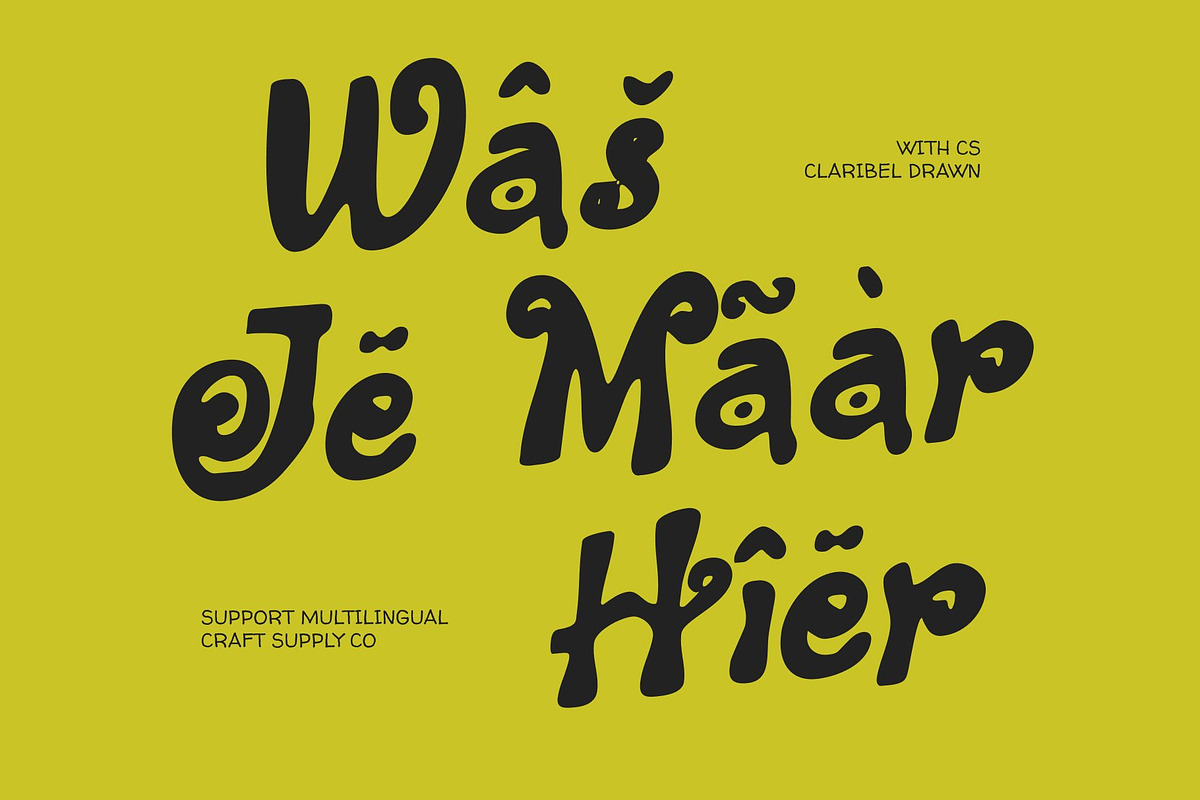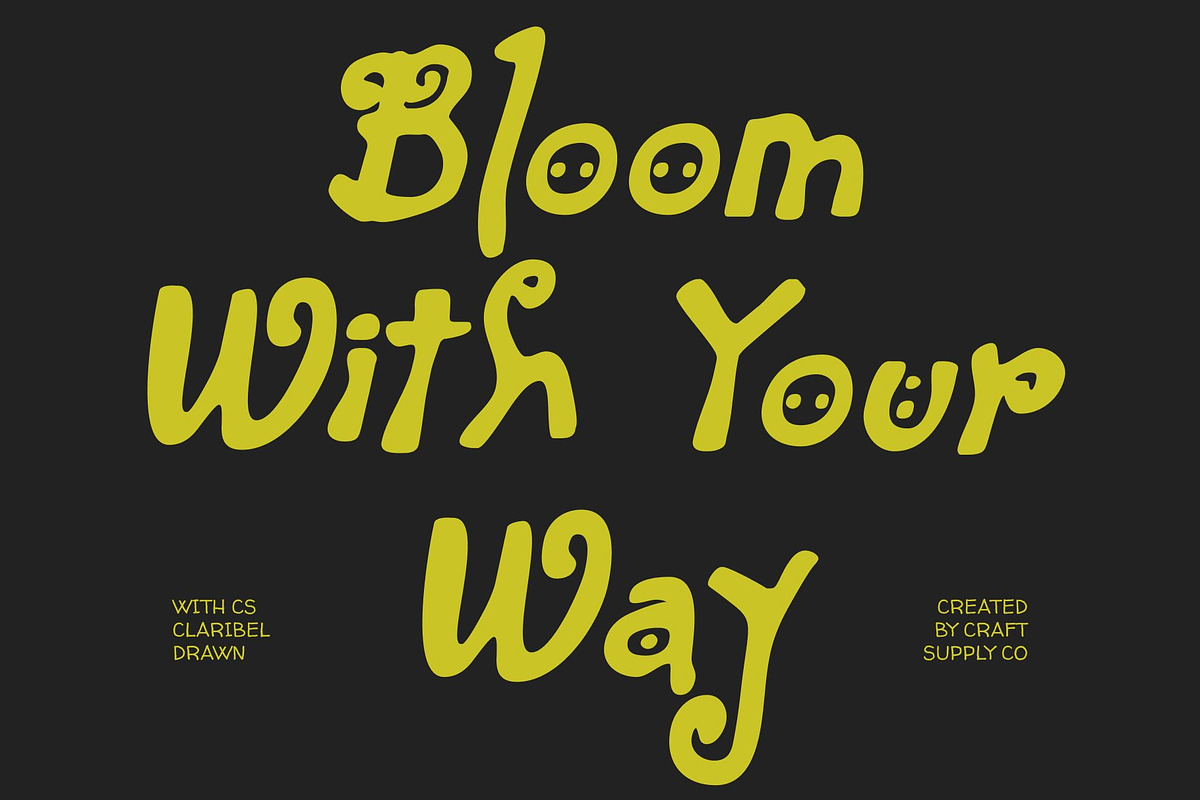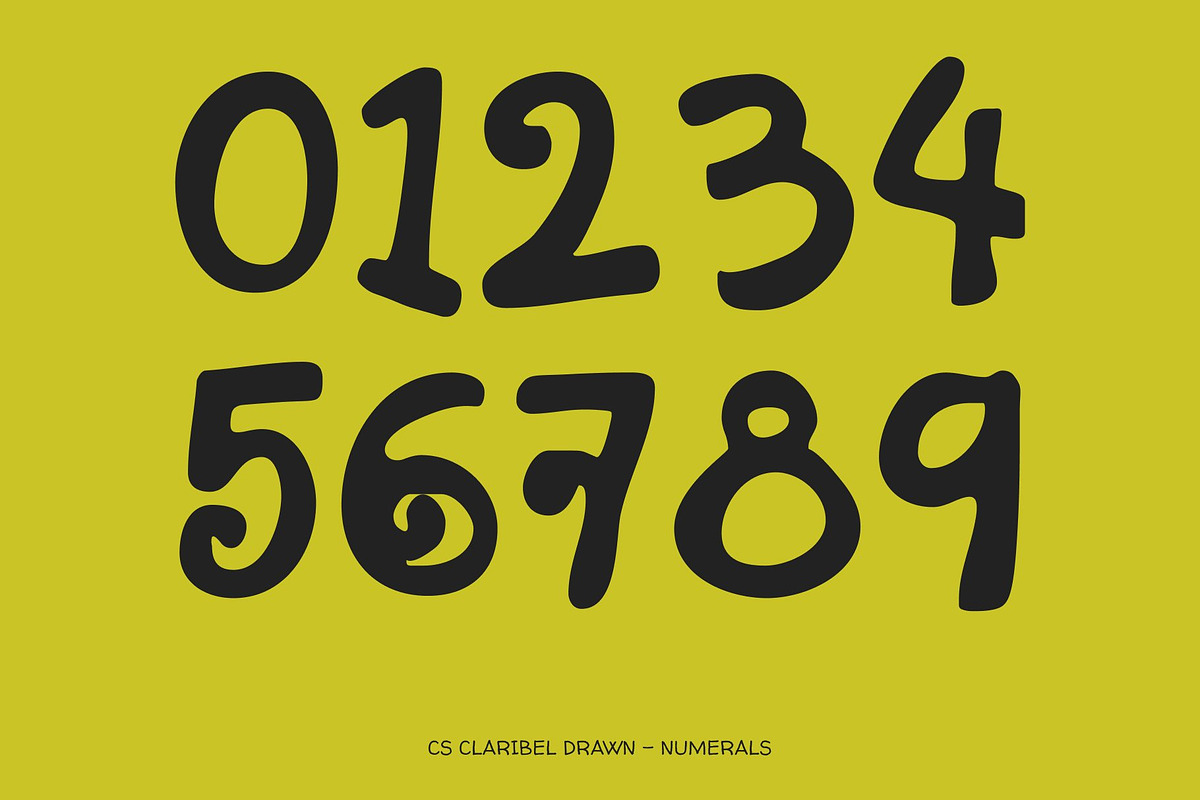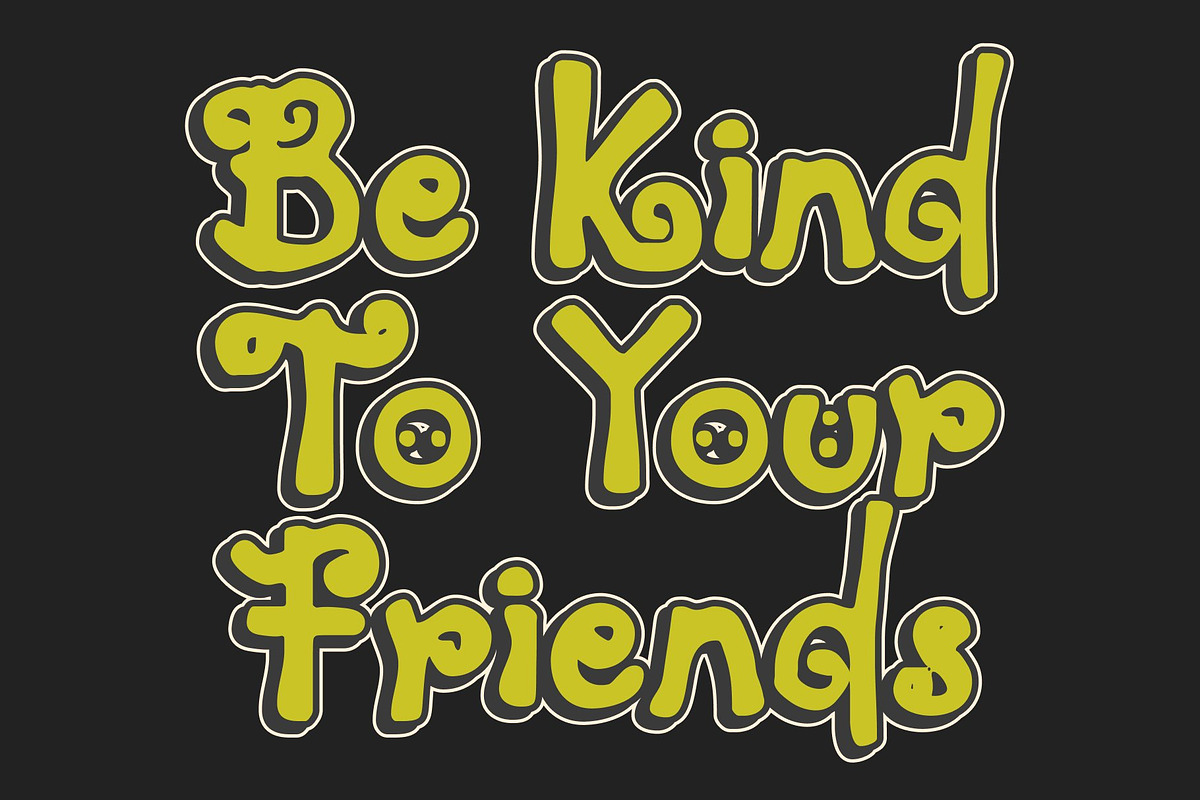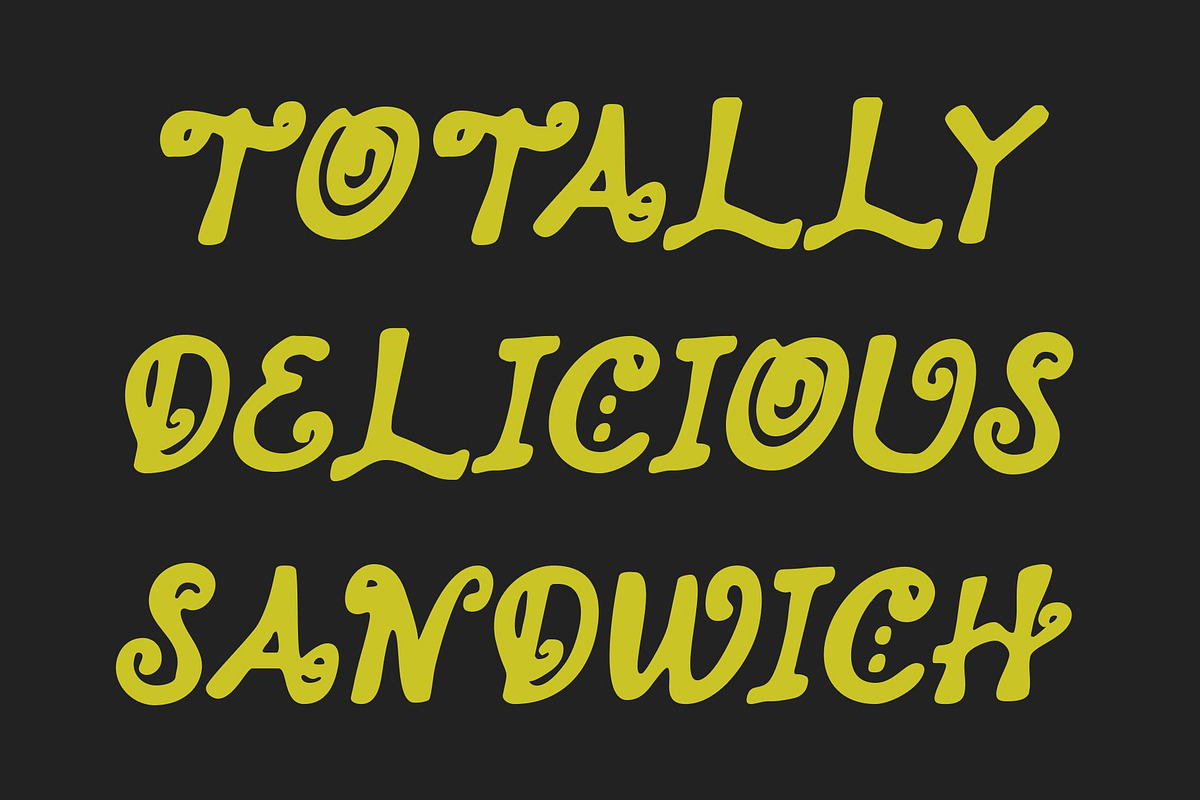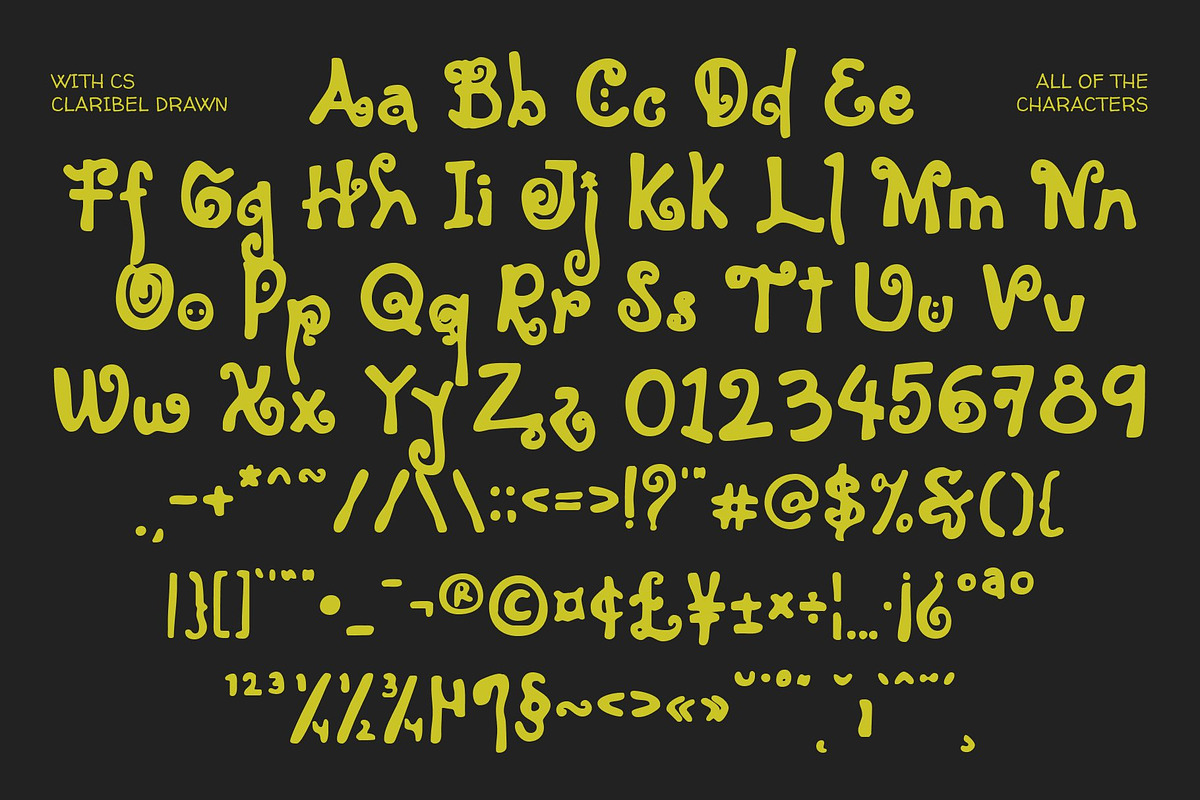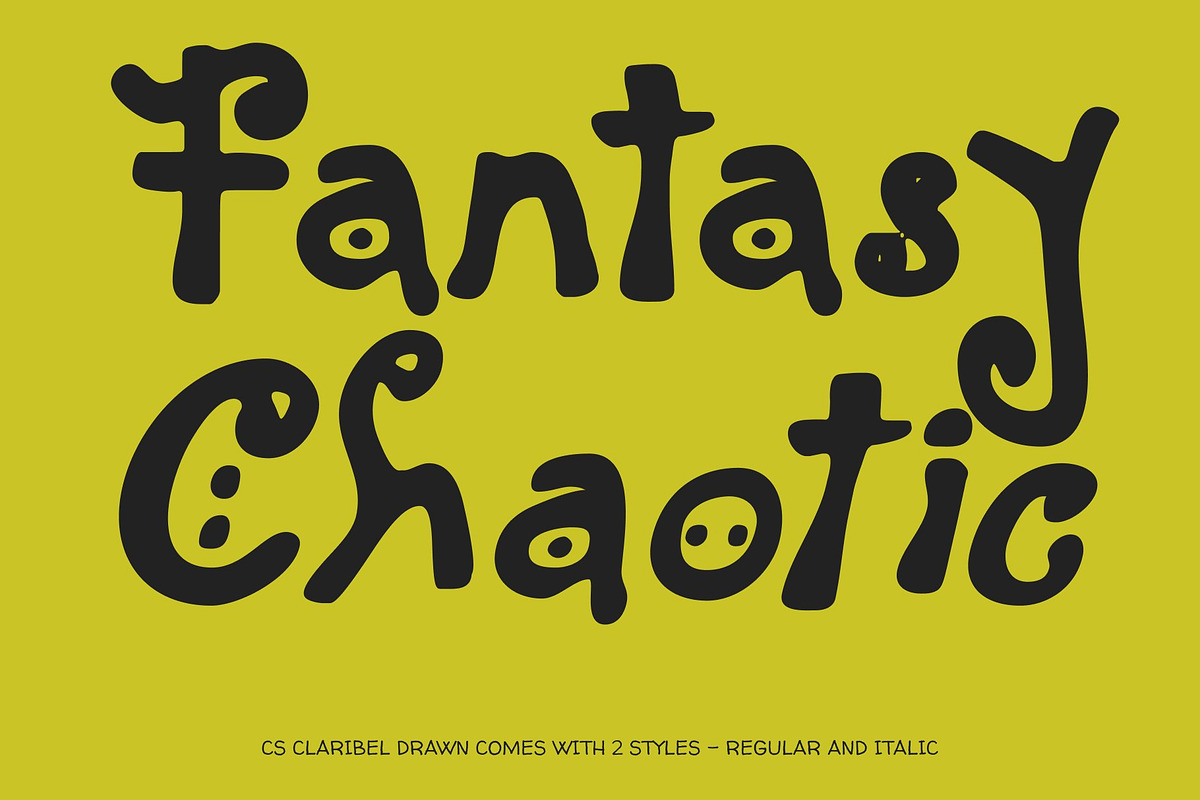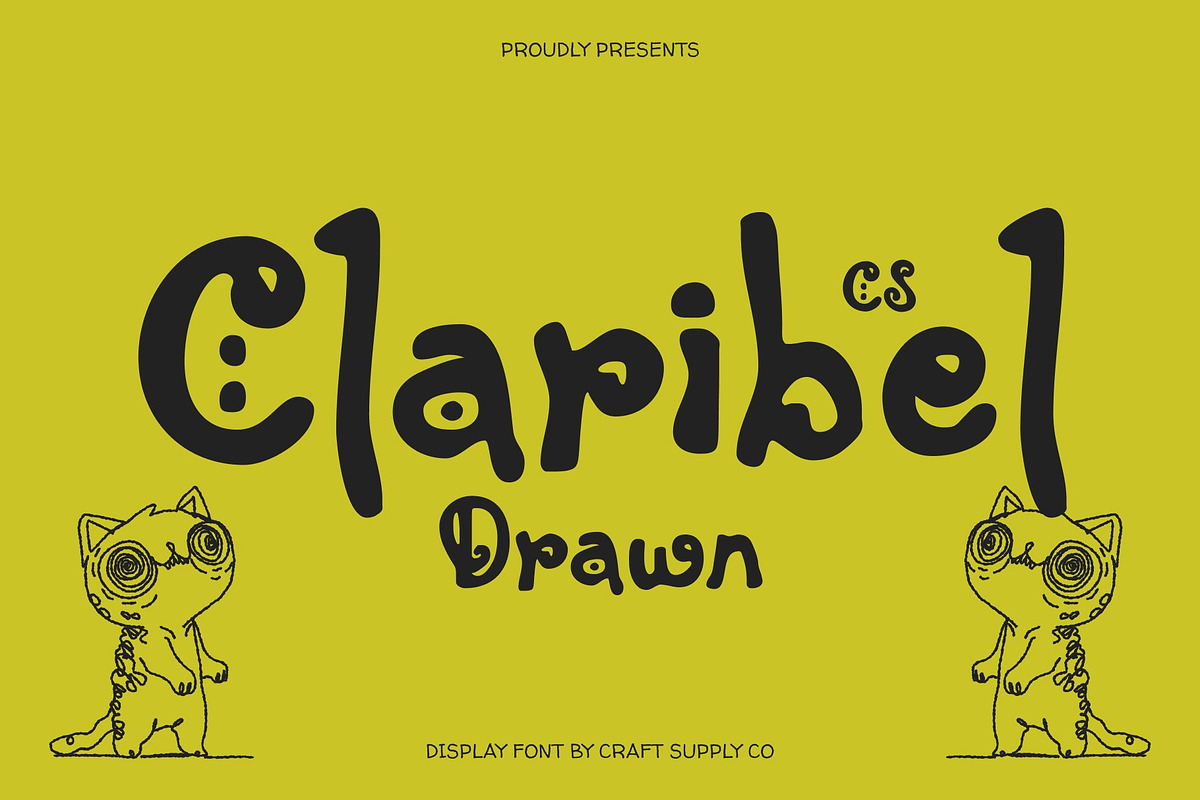
CS Claribel Drawn
CS Claribel Drawn – Whimsical Beauty with a Touch of Fantasy
Decorative Display Font with Artistic Handwritten Style This is a decorative display font that celebrates artistic handwriting with an enchanting, fantasy-inspired spirit. Its fluid strokes and expressive forms create a sense of movement and imagination, making each letter feel thoughtfully handcrafted. The drawn texture enhances its organic charm, giving the font a warm, personal, and visually poetic character.
Whimsical Letterforms with Magical Elegance Designed with playful curves and flowing lines, this font captures a whimsical rhythm that feels light, graceful, and full of wonder. The fantasy touch woven into its shapes evokes storybook aesthetics and creative storytelling. This balance between decorative detail and handwritten freedom makes the font feel lively without becoming overwhelming.
Perfect for Invitations, Branding, and Artistic Displays This font excels in elegant and expressive applications such as wedding invitations, boutique branding, beauty products, event posters, and creative packaging. Its ornamental personality turns text into a visual centerpiece, adding charm and individuality to designs that aim to feel special and memorable.
Expressive Typography for Imaginative Design More than a typeface, this font is a celebration of creativity and emotion. Its whimsical elegance and fantasy-inspired details make it ideal for designers who value storytelling through typography. Use this font to bring imagination, artistry, and enchanting beauty into every design.